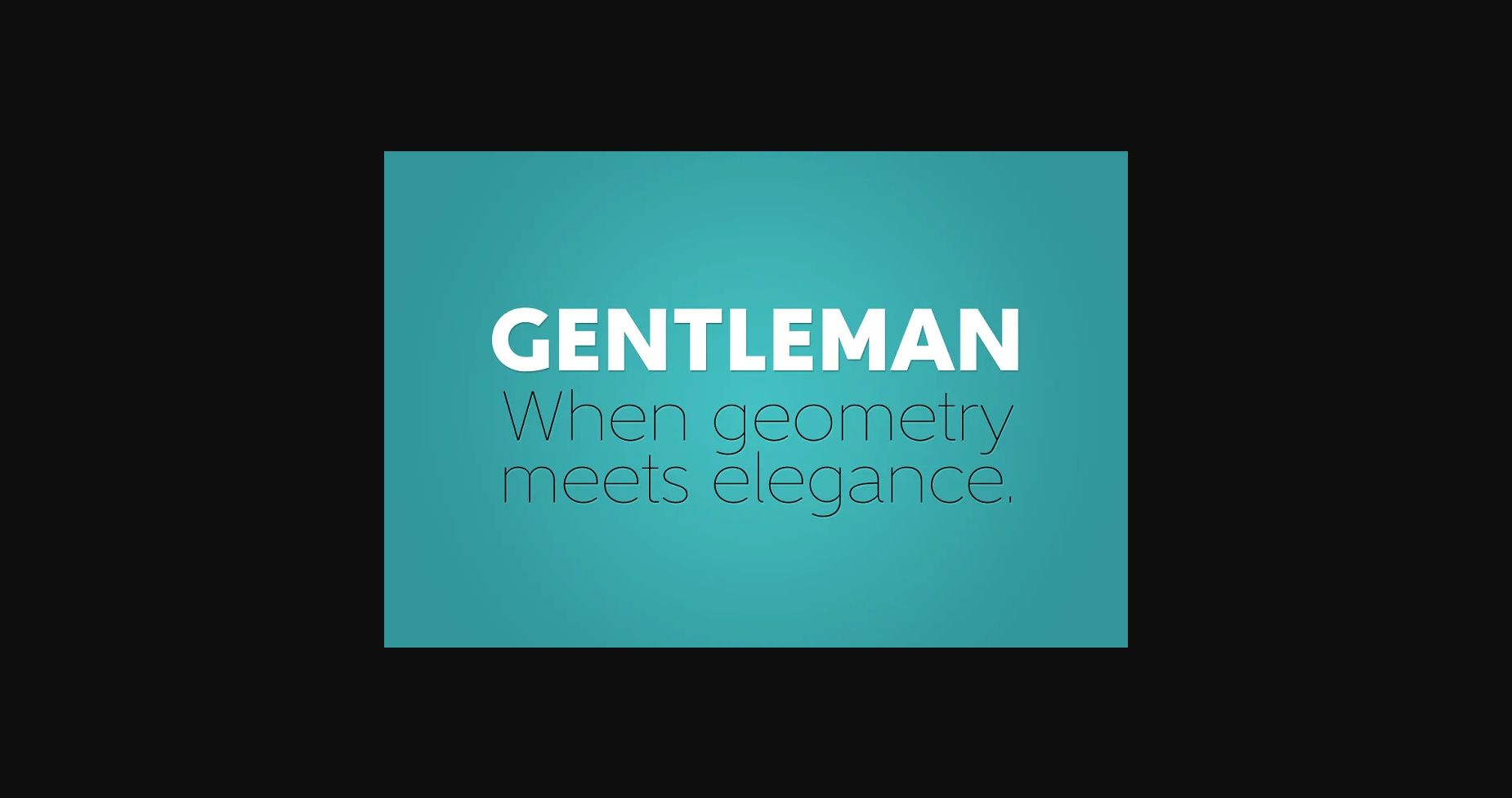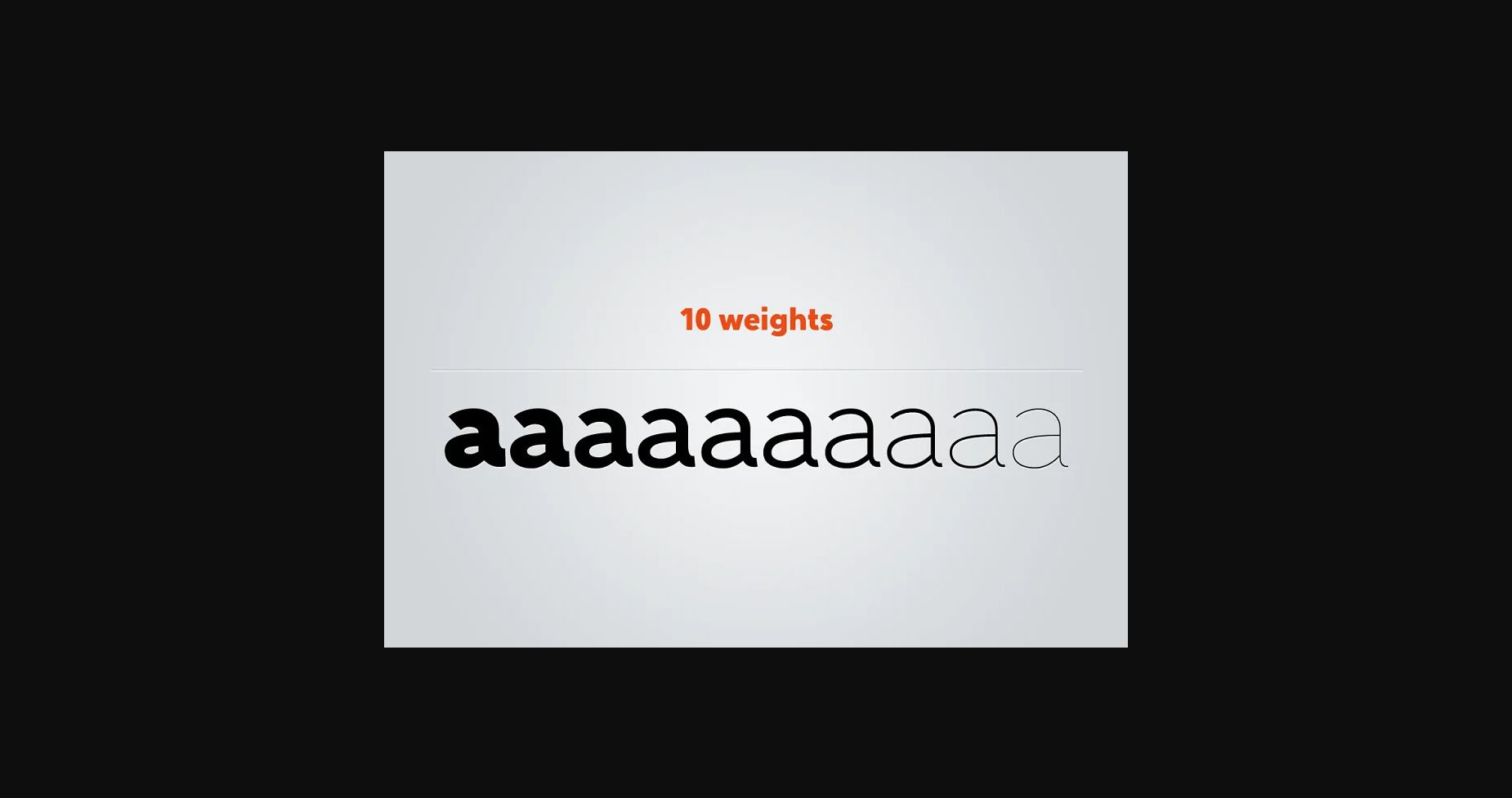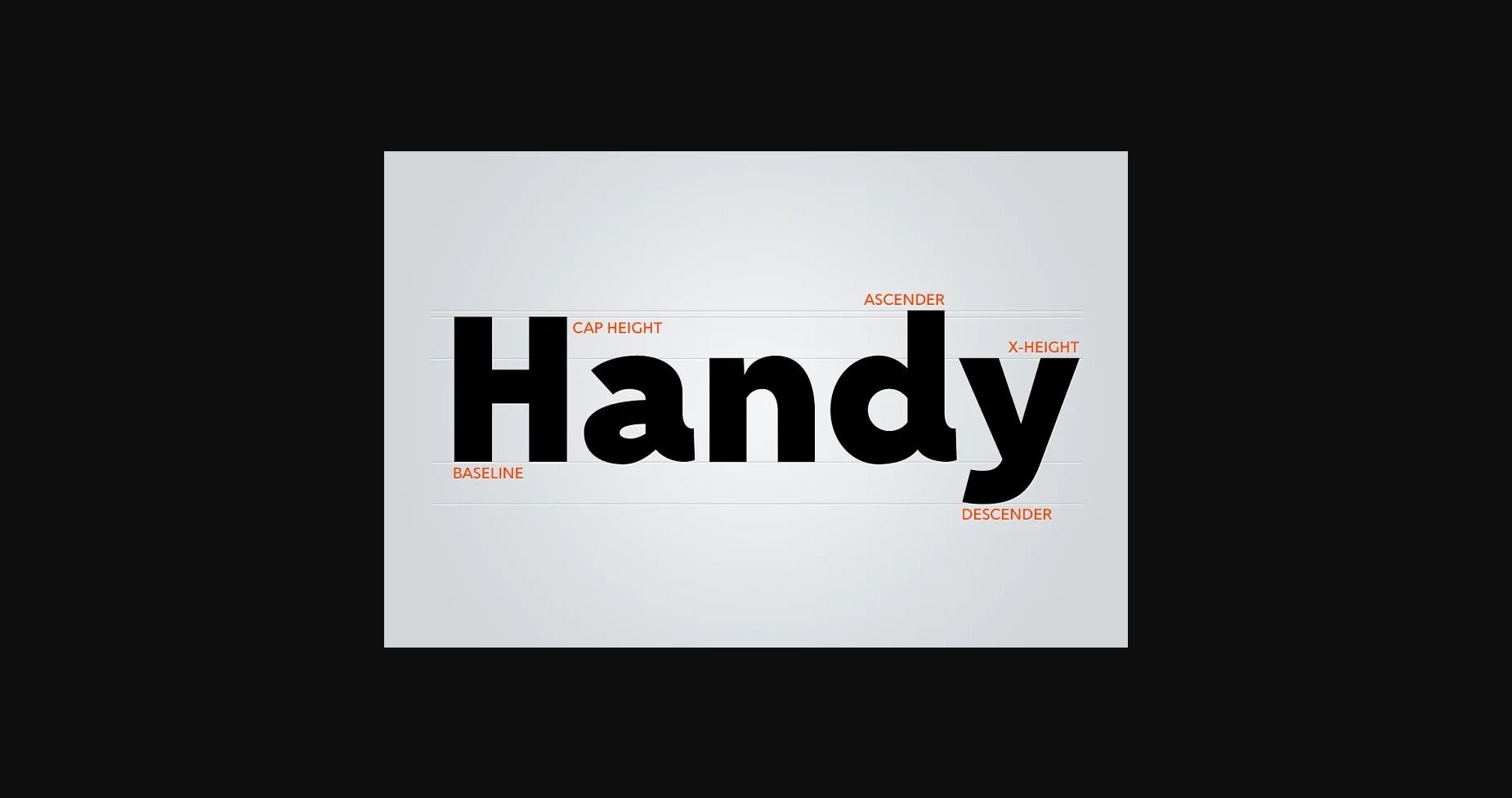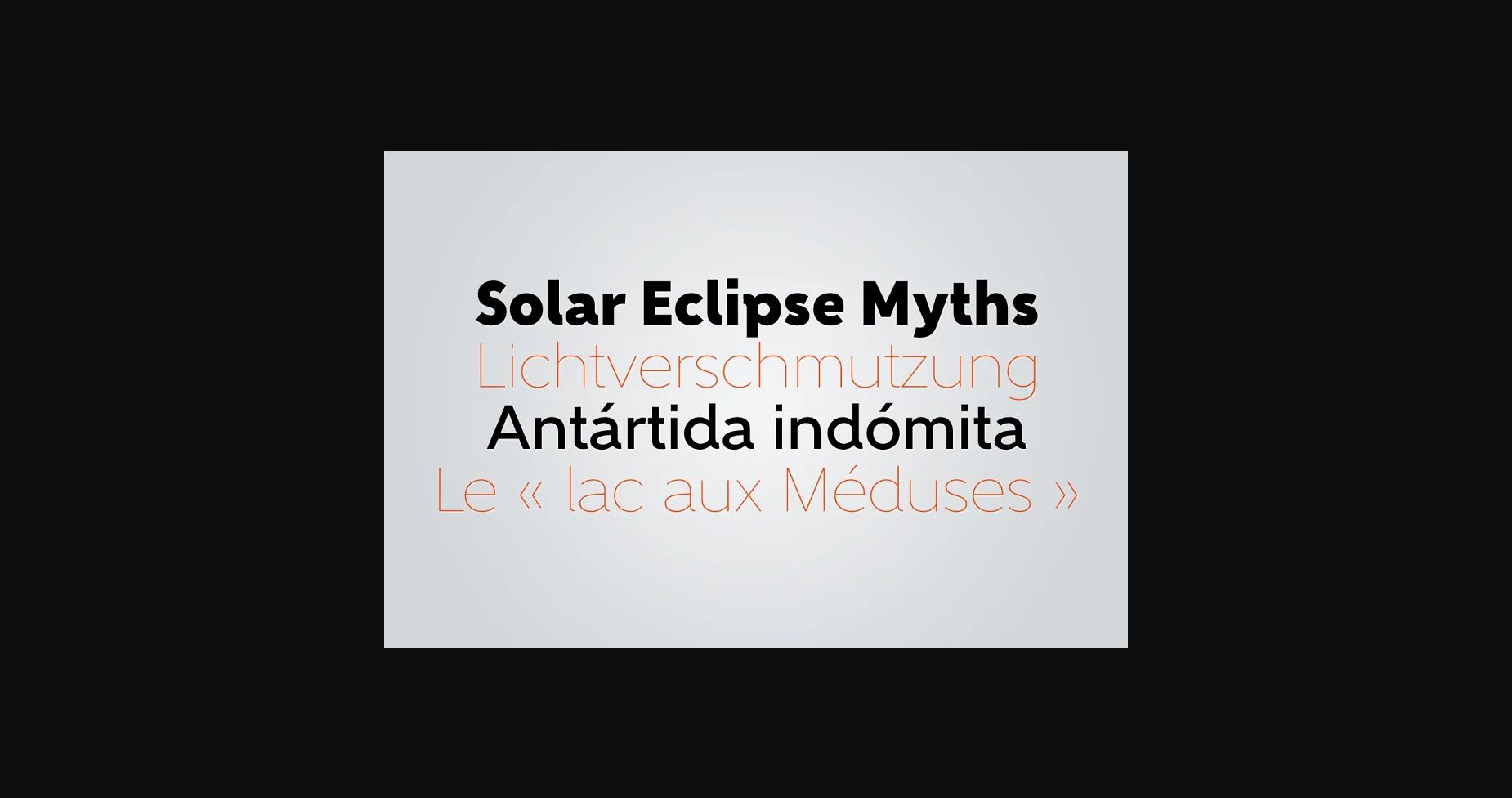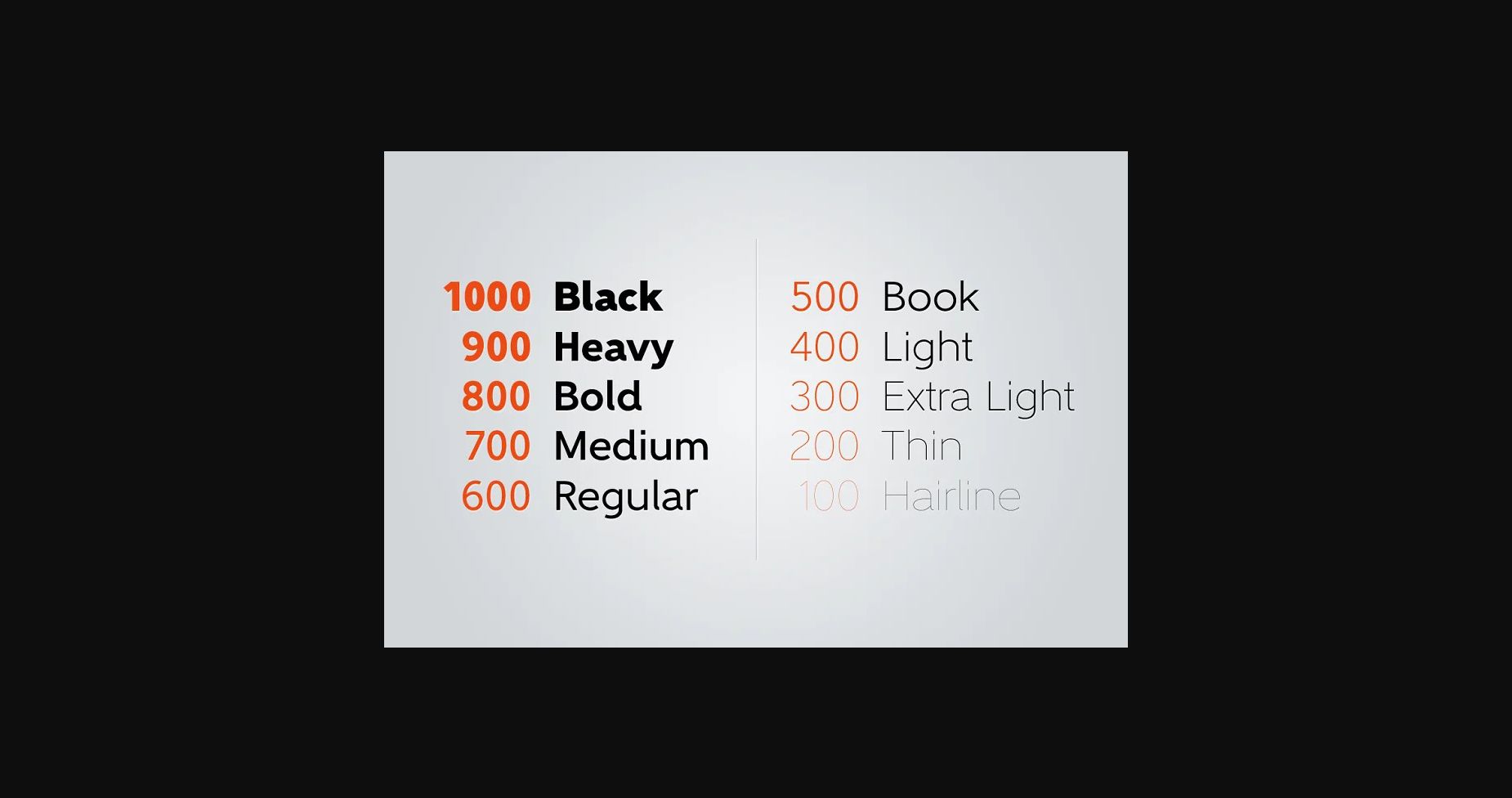
Gentleman Font
About Gentleman Font
Gentleman is a sans serif font family. This typeface has ten styles and was published by Juraj Chrastina.
It all started with my affection for geometric typefaces. I have always liked their unevenness. Unlike modern proportions types with quite a plain appearance, geometric typefaces tend to keep some dynamism and depth.
The decision was taken that my new face should be based on the elementary forms of geometry. But some questions remained. The legibility and the friendliness of such designs.
The generous x-height of gentlemen, constant throughout the family, increased the legibility and allowed a low-contrast construction even for thicker weights.
While the sans-serif simplicity looks cool and modern, several subtle decorative distractions are able to enrich the design by personality and by a warm and organic feeling. Indeed, Gentleman got a few distinctive elements. The uppercase G has no bar. The letters a, d, l, and p obtained outstroke terminals. A double-story left more space for creativity.
And at the end of the endless refinements and revisions, here we are with the Gentleman family, trying to become eye-pleasing in spite of its geometric simplicity.
Gentleman comes in 10 weights from hairline to black.
The fonts are equipped with carefully fine-tuned kerning tables.